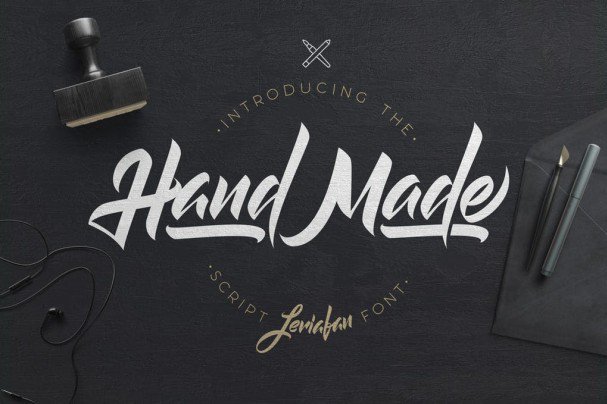
Leviafan Font
Right here is the Leviafan Font that is famous for its script typeface. This typeface is similar to the Grade font and it is free for personal use. It makes fonts appropriate for posters. The package deal is to be had in outstanding patterns: emerald or splatter.it’s miles pinnacle-notch for trademarks, t-shirt designs, and signage.